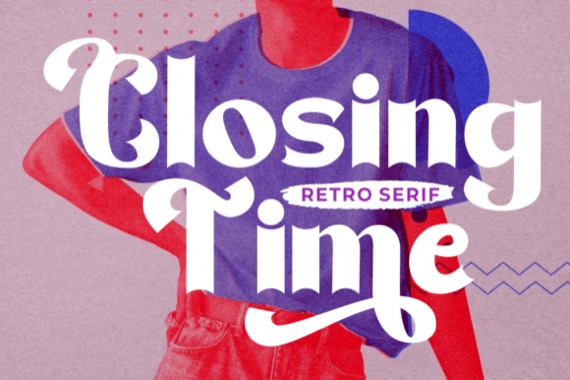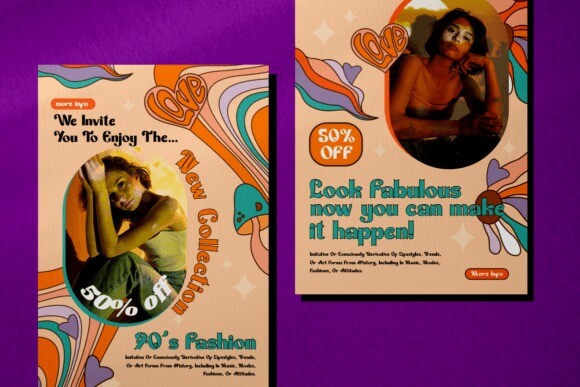
Closing Time Font Free Font Download Closing time font download is available free from 8font . closing time font is a display type font that can be used on any device such as pc, mac, linux, ios and android. this font created by putra novembria candra kusuma. Examples of this font can be found on the font site exfont, designed by putra novembria candra kusuma, include the number of glyphs 350 characters. you can find other similar fonts, or fonts in the same family as this font right below.
Closing Time Font Dafont101 Download closing time font for pc mac for free, take a test drive and see the entire character set. moreover, you can embed it to your website with @font face support. Closing time font family designed by putra novembria candra kusuma has a total of 2 different styles. you can download the closing time font to your computer or use it on your website. please research the license information before using it. Embrace the nostalgia and timeless charm of closing time – display retro font, and let your designs tell a story of a bygone era. this font is pua encoded which means you can access all of the amazing glyphs and ligatures with ease! this font is free for personal use and no commercial use is allowed!. This font features bold, decorative characters with a vintage flair. the letters have a unique, stylized appearance with sharp serifs and intricate detailing, making it stand out for creative designs.
Closing Time Font Free Font Embrace the nostalgia and timeless charm of closing time – display retro font, and let your designs tell a story of a bygone era. this font is pua encoded which means you can access all of the amazing glyphs and ligatures with ease! this font is free for personal use and no commercial use is allowed!. This font features bold, decorative characters with a vintage flair. the letters have a unique, stylized appearance with sharp serifs and intricate detailing, making it stand out for creative designs. Archive of freely downloadable fonts. browse by alphabetical listing, by style, by author or by popularity. Free download of closing time font family with 2 styles. released in 2023 by putracetol studio and licensed for personal use only. use our font generator to create a custom image that you can download. Embrace the nostalgia and timeless charm of closing time – display retro font, and let your designs tell a story of a bygone era. Download free closing time icon fonts for your projects web, android, ios. 50,000 free icons, png and svg.